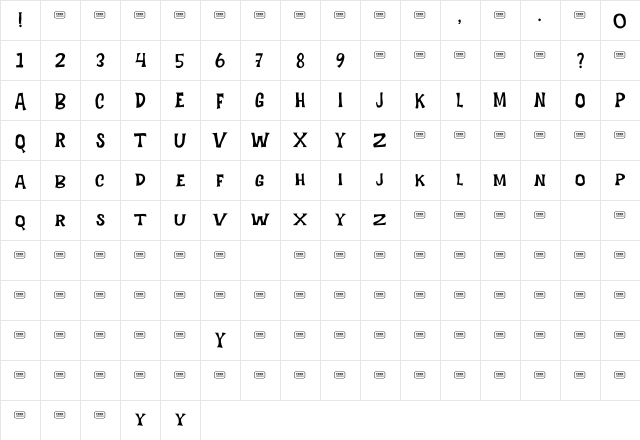
Death World Free Trial Regular
Design Context for Death World Free Trial
Death World Free Trial carries an unsettling edge - its distorted letterforms are built to unsettle, perfectly suited to horror, Halloween, and dark creative work.
Font Pairing: Pair with a clean neutral sans-serif for body copy to let Death World Free Trial's character lead without overwhelming the composition.
Pro Tip: Use Death World Free Trial at larger display sizes for maximum impact. Consider generous tracking to let the disturbing character of each letterform breathe.